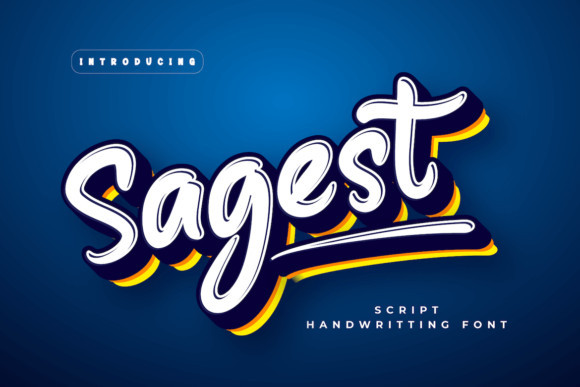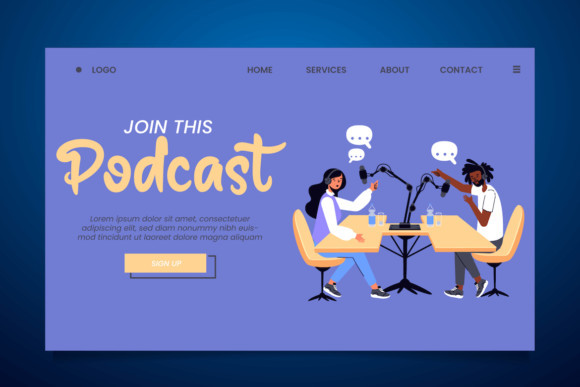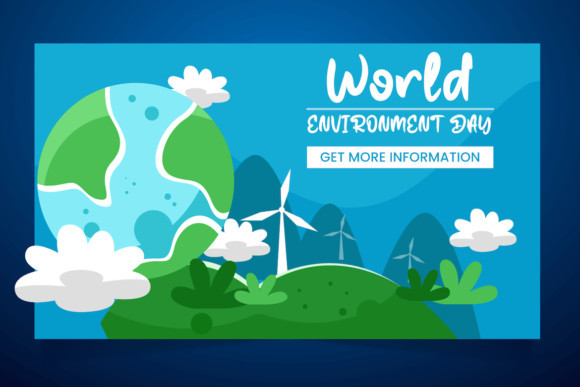
Sagest Font
Sagest is a fun and stylish paint brushed handwritten font. This original look will appeal to a wide range of crafty ideas, from letterheads and titles, to stationery.